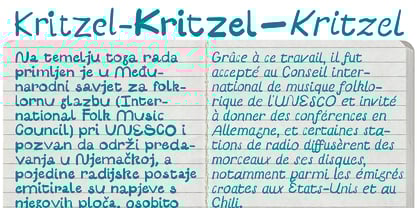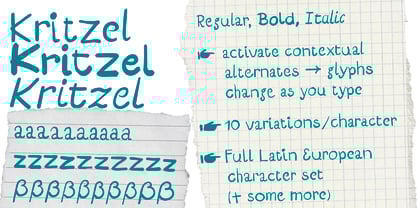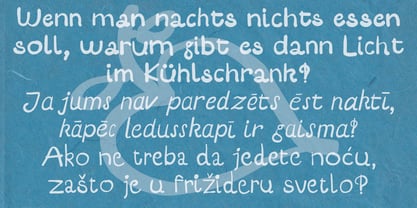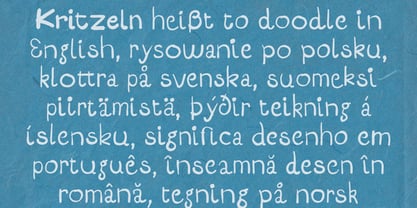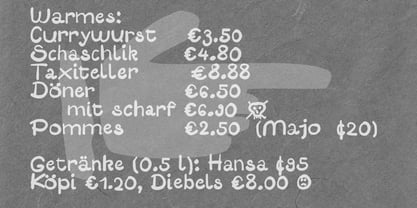
Kritzel
The Kritzel Font Family was designed by Werner Eschmann and published by Fontroll. Kritzel contains 3 styles and family package options. More about this family
Hi, here's Kritzel (German for doodle). A font with 10 variations per character which change automatically once you activted Contextual Alternates (calt) in your app. In three fonts: Roman, Itaiic and Bold. This and some basic kerning makes appear Kritzel an almost natural handwriting. So you basically get 10 fonts per weight for the price of one with a total amount of more than 3700 glyphs PER FONT (and no, we don't include totally useless accents)!
If you want to use Kritzel in Latin written European languages, go for it. Even more we added skulls, arrows, pointers, smileys and frownies.
Kritzel is perfect for comics, "handwritten" invitations, packaging, posters, leads, captions...